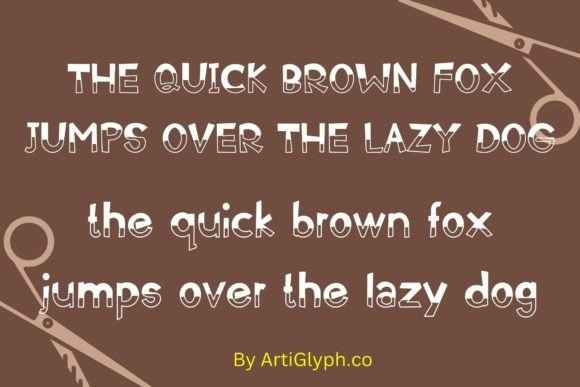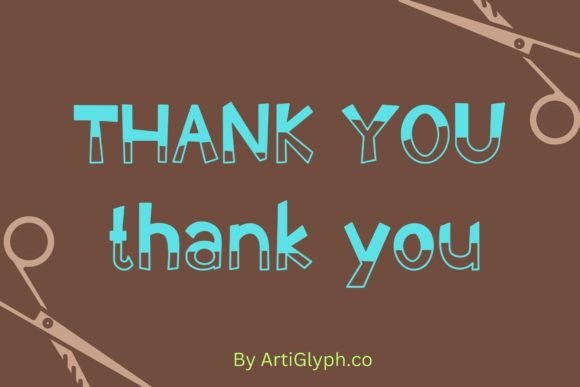
Introduction to Handtrim Slice Font
We’ve all been there – staring at a blank page, trying to find the perfect font to bring our creative project to life. And then, suddenly, you stumble upon it – the one that makes your design sing. For many designers, that moment is often marked by the discovery of a unique and charming font that adds a touch of personality to their work. One such font that has captured the hearts of designers everywhere is the Handtrim Slice Font.
This modern decorative cute handwritten font is more than just a design resource – it’s a game-changer. With its irregular and playful letterforms, it adds a sense of whimsy and individuality to any project. Whether you’re working on a high-quality brochure, a creative logo, or a free download template, Handtrim Slice Font is sure to elevate your design to the next level.
Key Features of Handtrim Slice Font
- High-quality, hand-drawn design ideal for creative projects requiring a unique touch.
- Transparent background option allows for seamless integration with various design elements.
- Includes 100 glyphs and supports up to 100 languages, making it a versatile design resource.
- Features a unique, hand-trimmed design style that adds a touch of elegance to any project.
Honest Review: Handtrim Slice Font
As a designer, I’m always on the lookout for unique and high-quality design resources to elevate my creative projects. Recently, I stumbled upon the Handtrim Slice Font, and I’m excited to share my honest review with you.
Here’s what I love about this font:
- ✨ High-quality design: The Handtrim Slice Font has a beautiful, hand-crafted feel that’s perfect for adding a touch of elegance to any project.
- ✨ Versatile: This font is suitable for a wide range of creative projects, from branding and marketing materials to digital art and illustrations.
However, I do have a few minor quibbles:
- ⚠️ Limited font sizes: The Handtrim Slice Font may not be the best choice for large-scale text, as it can become difficult to read.
- ⚠️ No transparent background option: If you’re working on a design that requires a transparent background, you may need to look elsewhere.
Overall, I’m impressed with the Handtrim Slice Font, and I think it’s a great addition to any designer’s toolkit. With a little creativity, you can work around its limitations and achieve amazing results.
The Handtrim Slice Font is a high-quality, free download design resource ideal for creative projects. It features a unique and stylish design that can be used to add a professional touch to your work.
Tips for Getting the Most Out of Handtrim Slice Font
To get the most out of the Handtrim Slice Font, consider using it with a transparent background to add a professional touch to your work. You can also experiment with different font sizes and colors to create a unique look.
The Handtrim Slice Font is ideal for use in a variety of creative projects, including graphic design, digital art, and print design. It can be used to create eye-catching headings, titles, and other text elements.